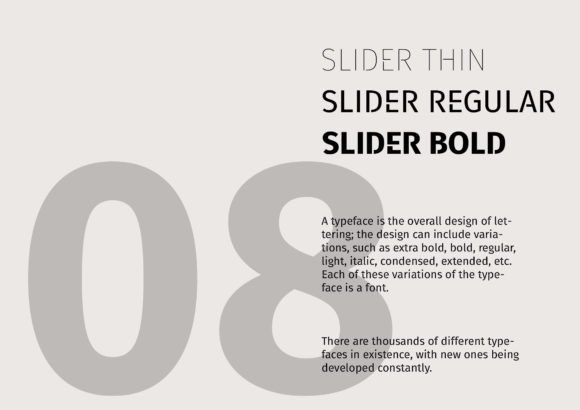
Introduction to Slider Font
You’re working on a creative project and struggling to find the perfect font that captures the essence of your design. The font is the first thing that catches the viewer’s eye, and it’s crucial to get it right. This is where the Slider Font comes in – a simple and casual sans serif font that will elevate your design to the next level.
The Slider Font boasts an undeniably clean feel, with a neat and beautiful arrangement of letters that will look outstanding in both formal and non-formal designs. Its high quality and versatility make it an invaluable design resource for designers of all levels. Whether you’re working on a personal project or a professional one, the Slider Font is sure to deliver.
Key Features of Slider Font
- High-quality design: Slider Font is a premium font designed for creative projects, ensuring a professional and polished look.
- Unique characteristics: Slider Font features a modern and sleek design, perfect for creative projects requiring a touch of sophistication.
- Perfect for design resources: This font is ideal for use in logos, branding materials, and other design elements where a high-quality font is essential.
Honest Review: Slider Font
I recently came across Slider Font and was impressed by its unique style and versatility. As a designer, I’m always on the lookout for high-quality design resources that can elevate my creative projects.
Here are some aspects that work well for Slider Font:
- ✨ Sleek and modern design aesthetic that’s perfect for contemporary projects
- ✨ Highly customizable with various font weights and sizes
- ✨ Great for use on transparent backgrounds, which adds a touch of sophistication to any design
- ⚠️ Limited character set, which might not be suitable for complex or lengthy text-based projects
- ⚠️ Some users may find the font’s complexity overwhelming, which could affect readability
Overall, I’m impressed with Slider Font’s potential to elevate my designs. Its modern style and high level of customizability make it a valuable addition to any designer’s toolkit. With a bit of caution regarding its limitations, I’d highly recommend Slider Font as a free download for designers looking to spice up their creative projects.
Tips for Getting the Most Out of Slider Font
For the best results, use Slider Font with a contrasting background to make it stand out. You can also experiment with different font sizes and colors to create a unique look.
Slider Font is perfect for presentations, infographics, and other creative projects where a high-quality font is needed. It’s also a great choice for websites and social media graphics.